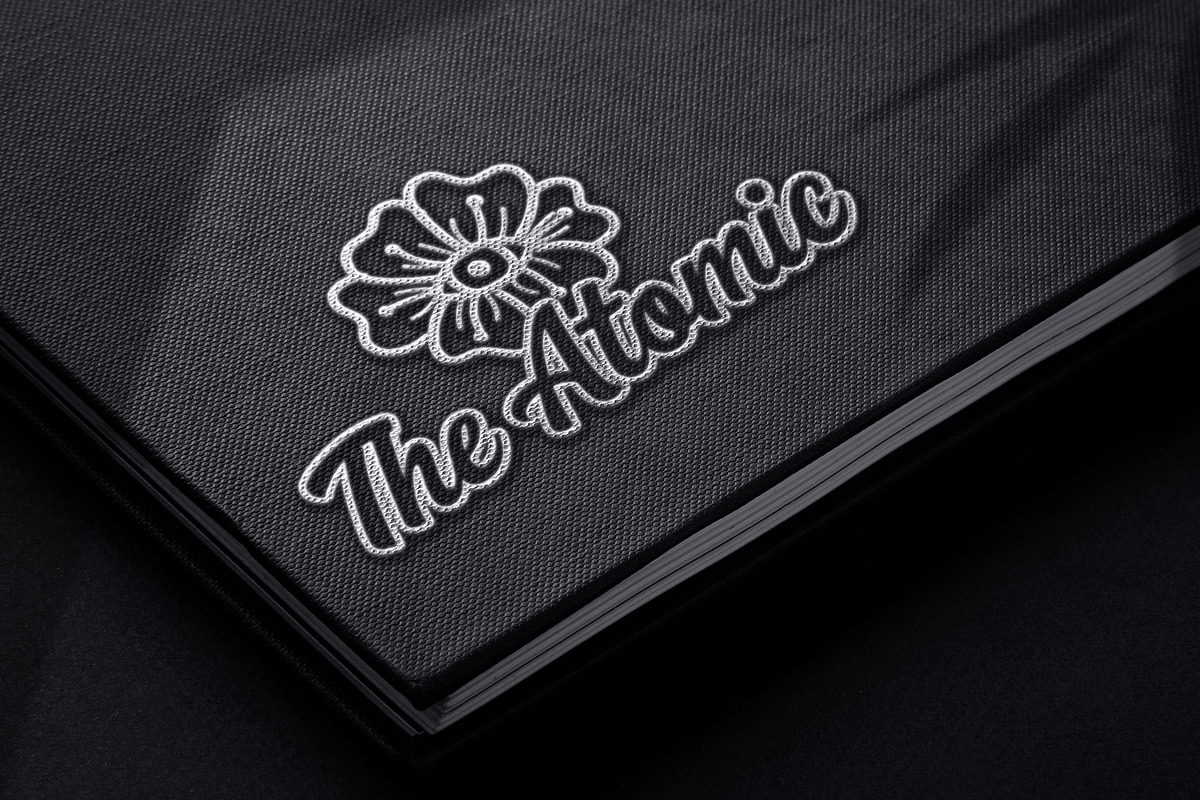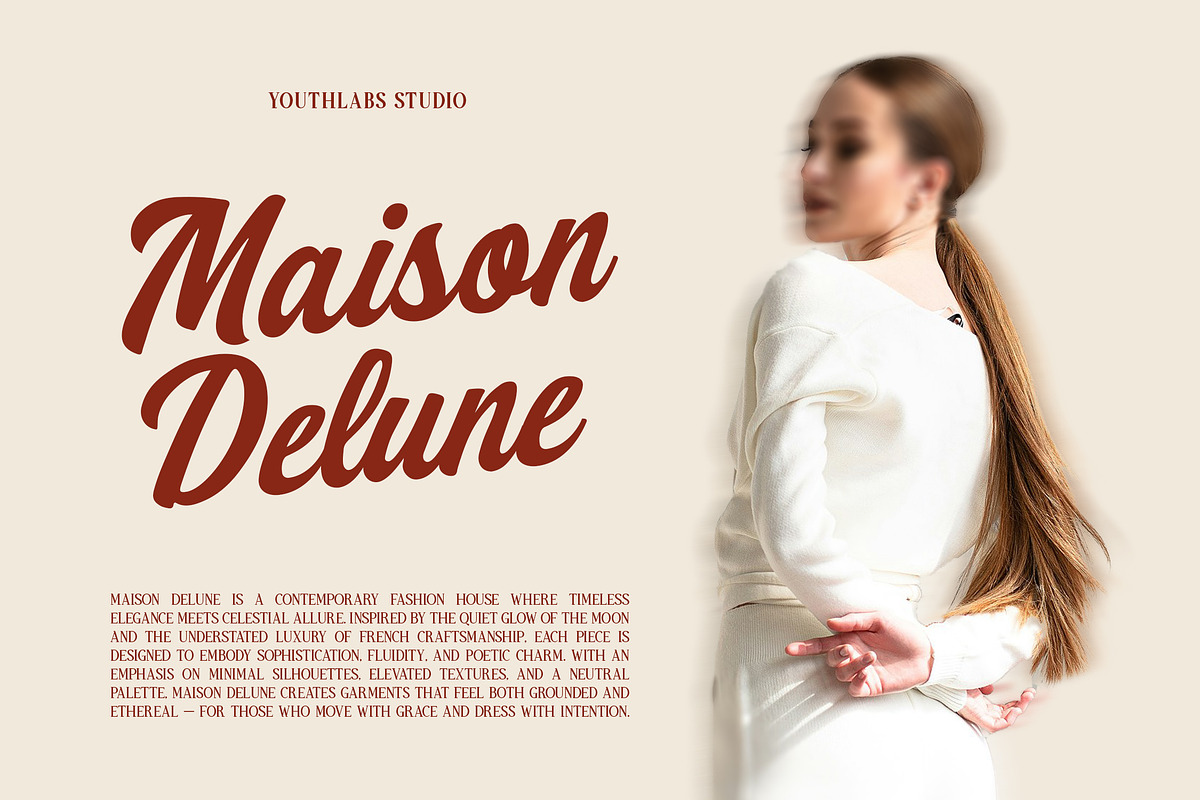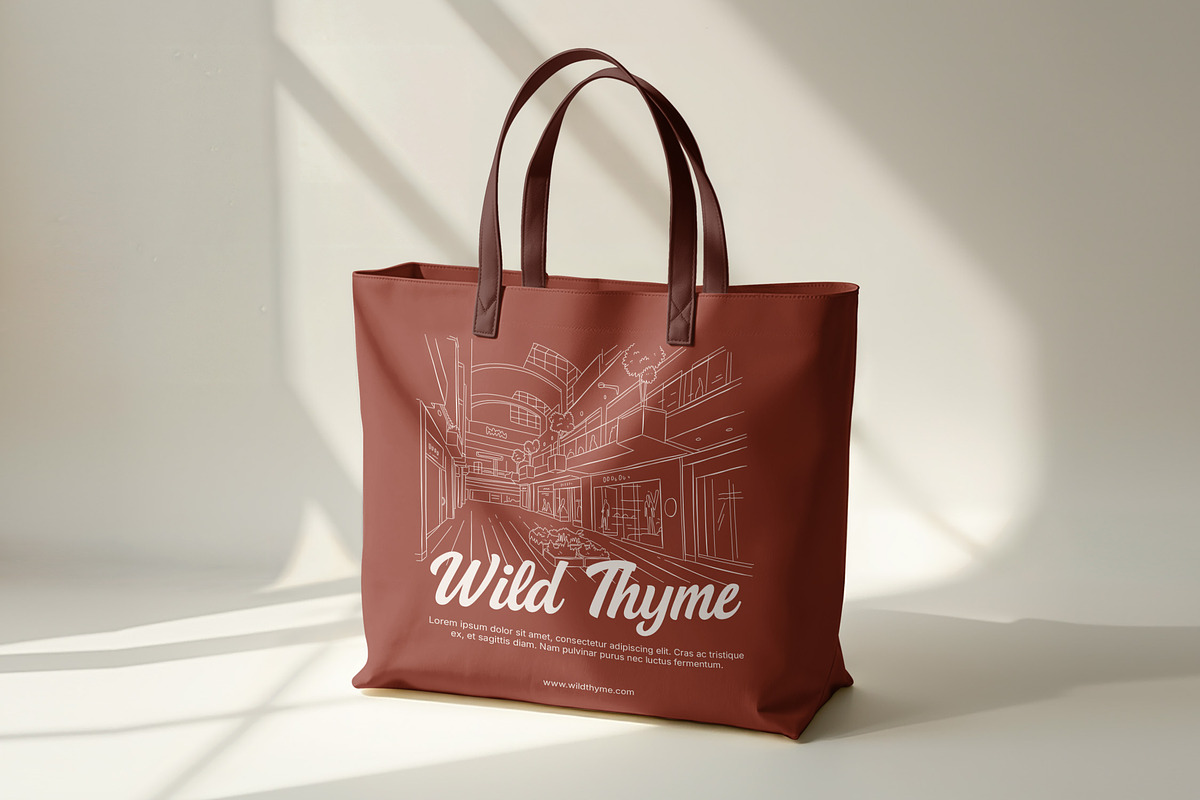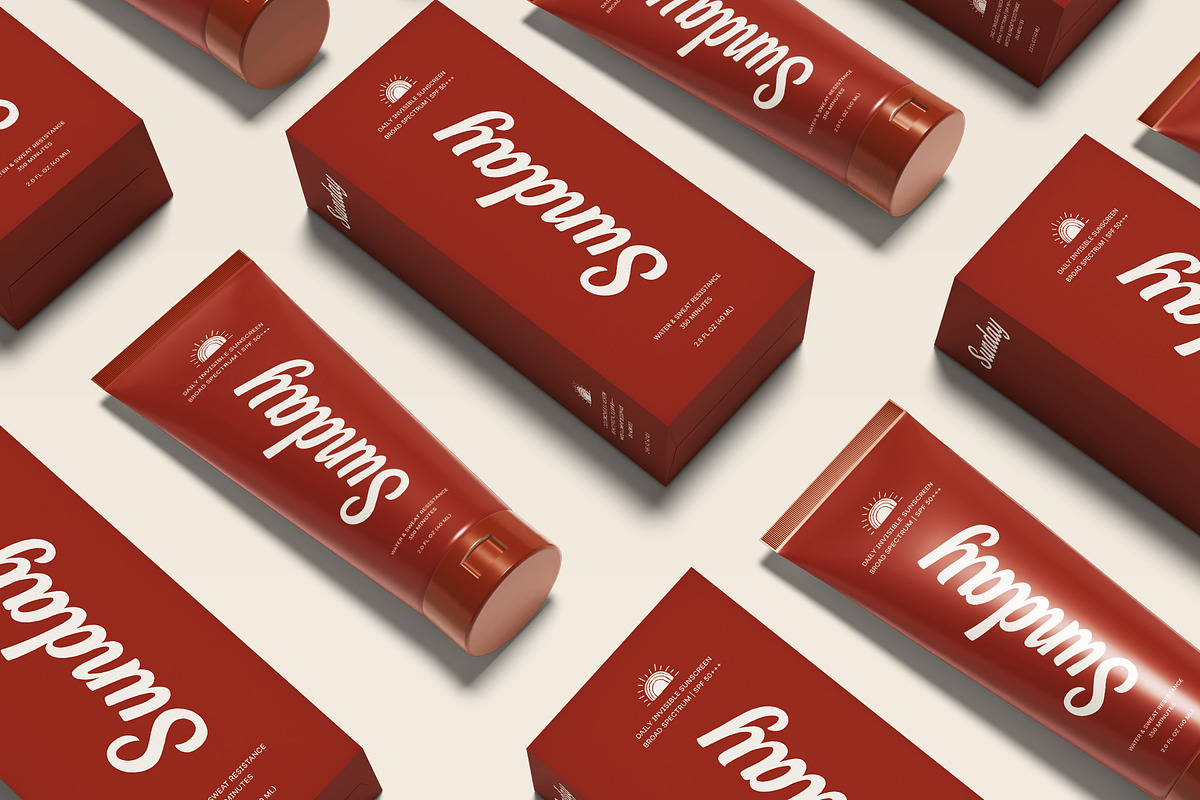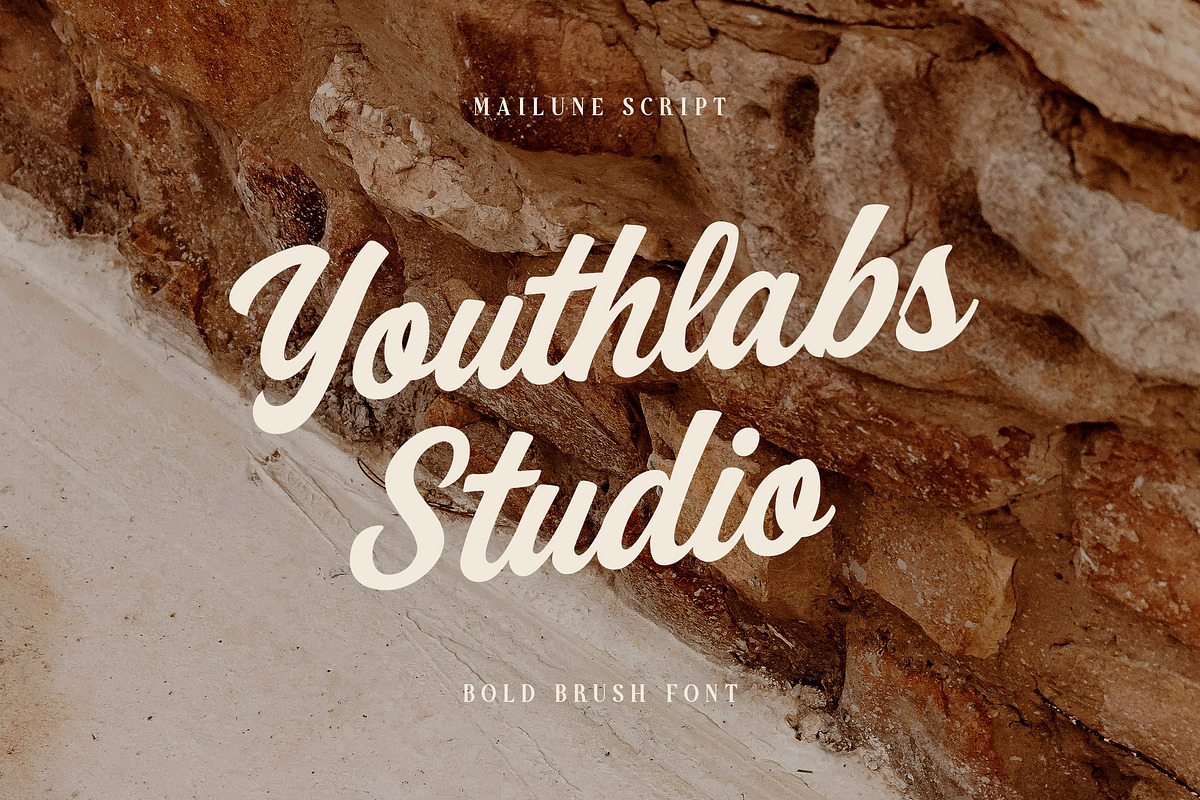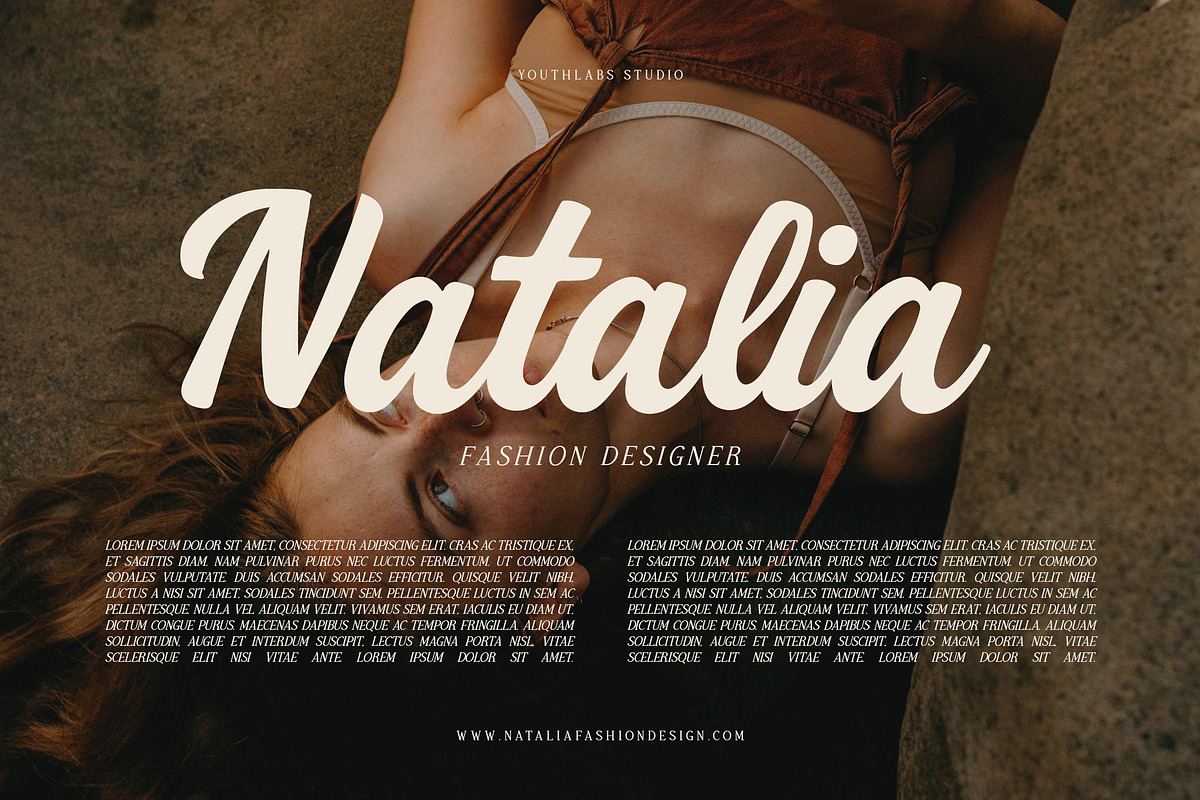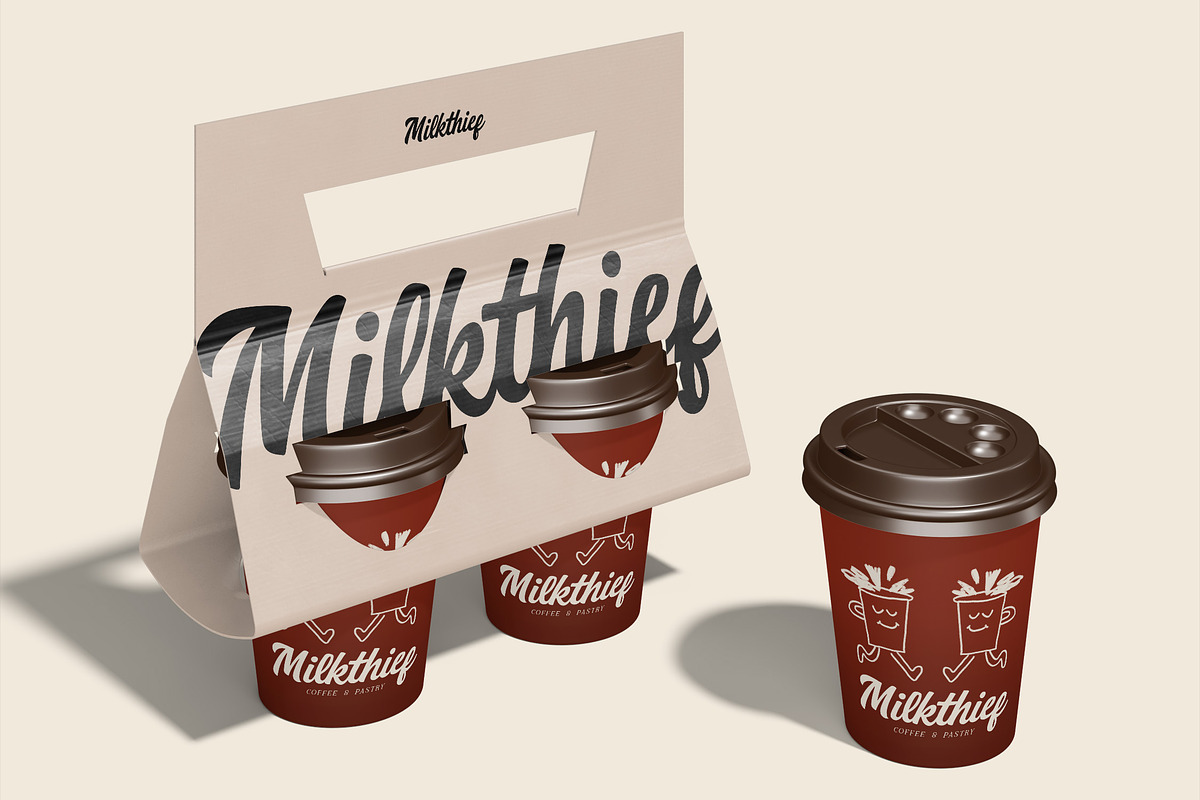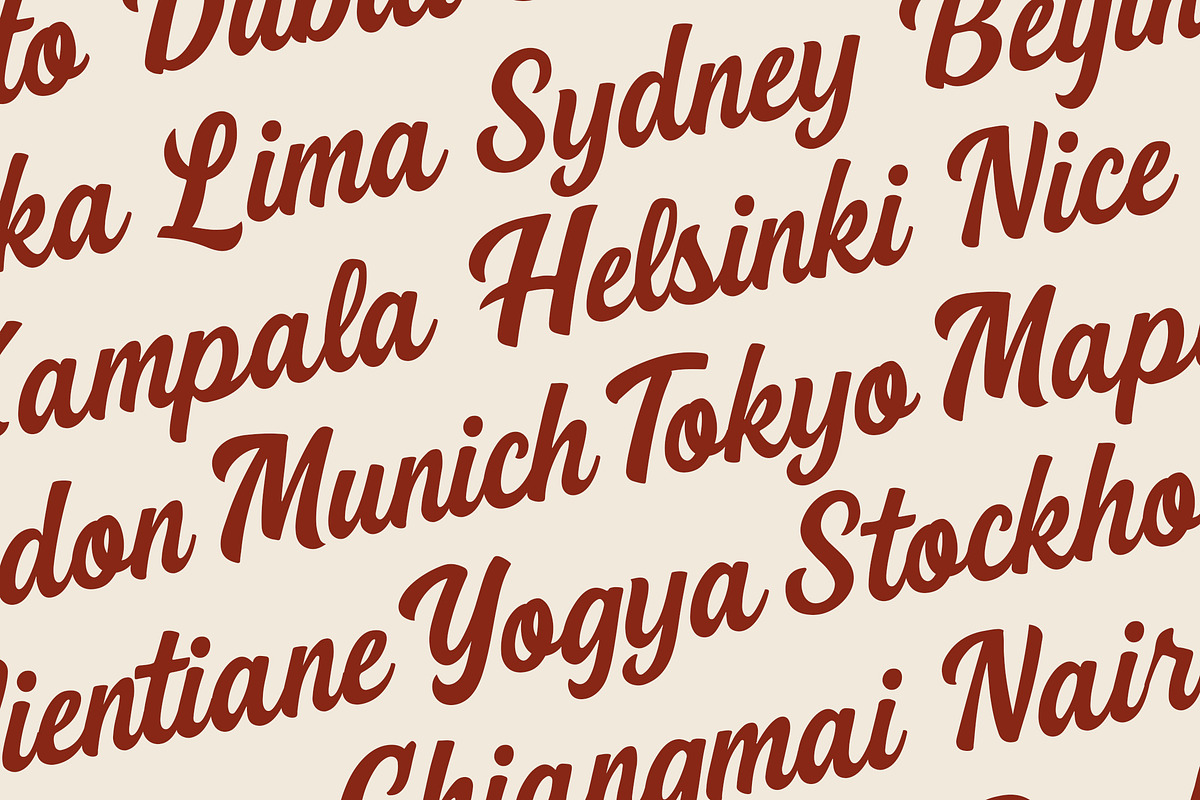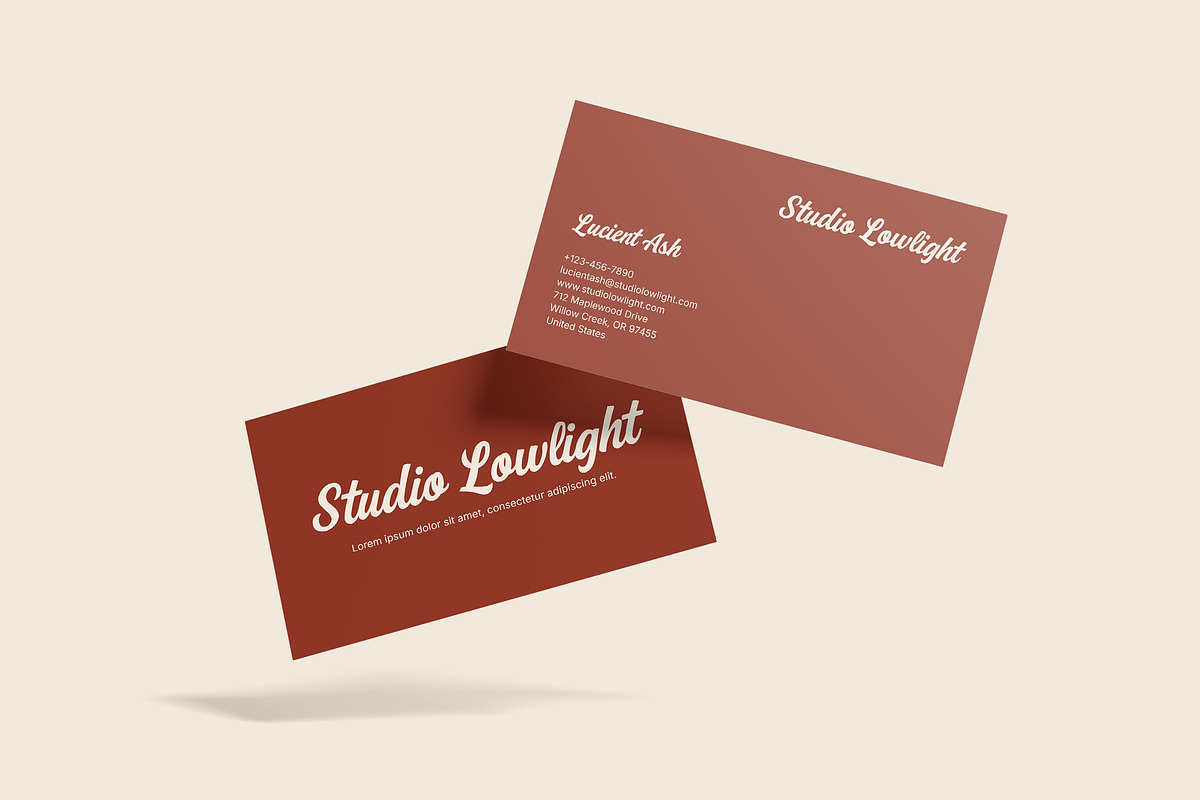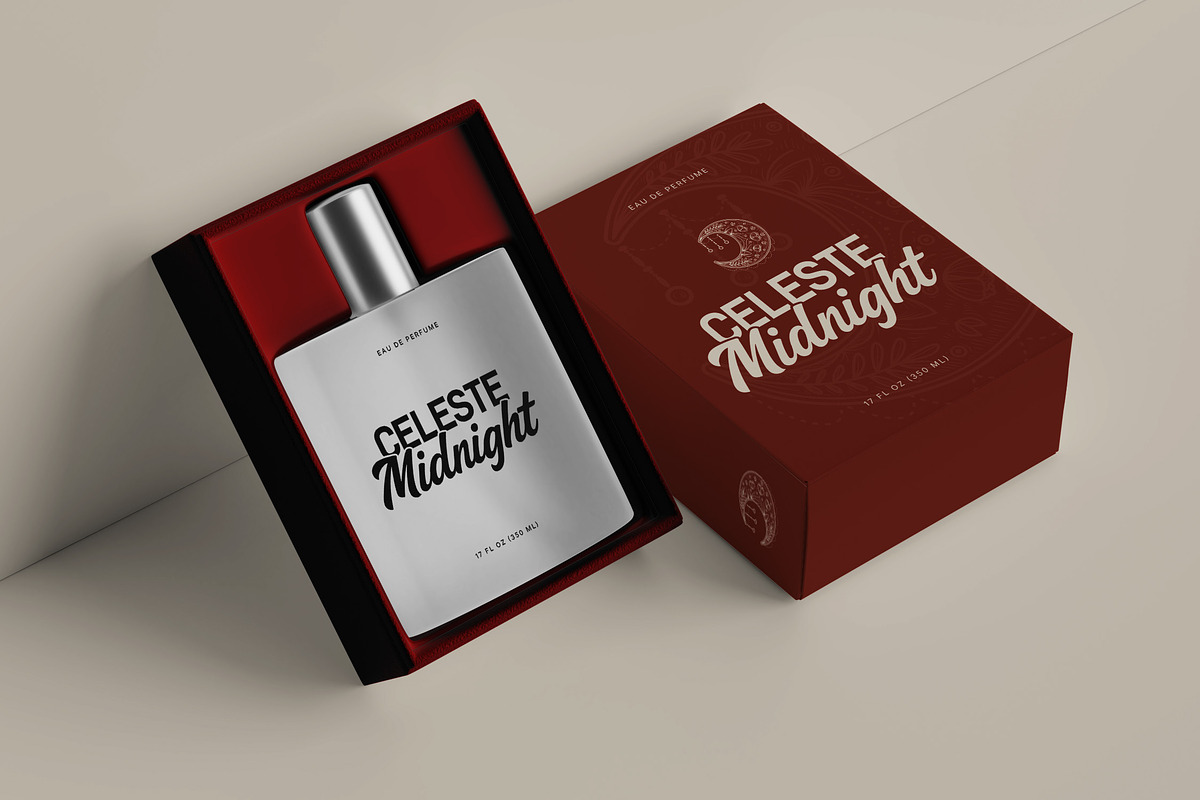
Mailune - Bold Brush Script Font
Mailune is a bold brush script font inspired by golden hour picnics and slow summer afternoons. With its sweeping strokes and rich texture, Mailune captures the essence of handwritten elegance and rustic charm. Perfect for romantic branding, packaging, invitations, or lifestyle content, this font brings warmth and character to any design. Whether you're designing for a modern boho brand or crafting cozy seasonal graphics, Mailune adds a touch of bold, heartfelt beauty.
- Alternate Character
- Opentype Feature